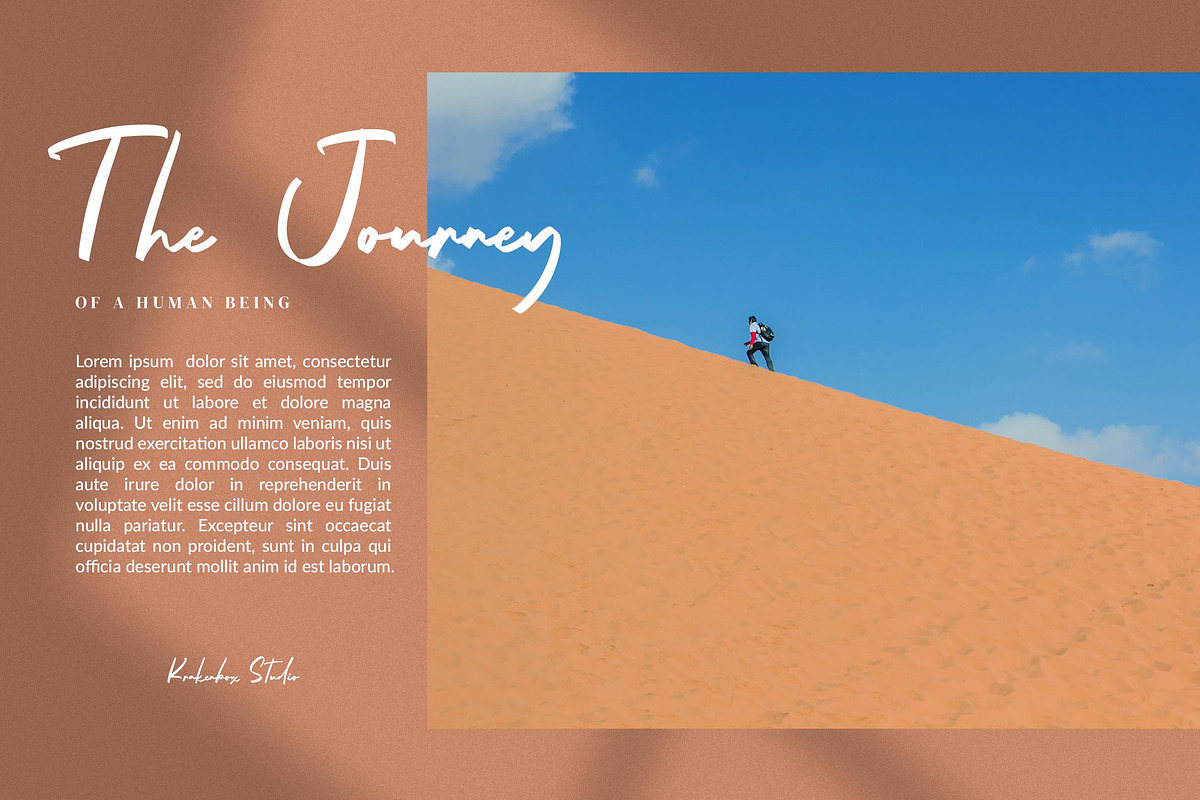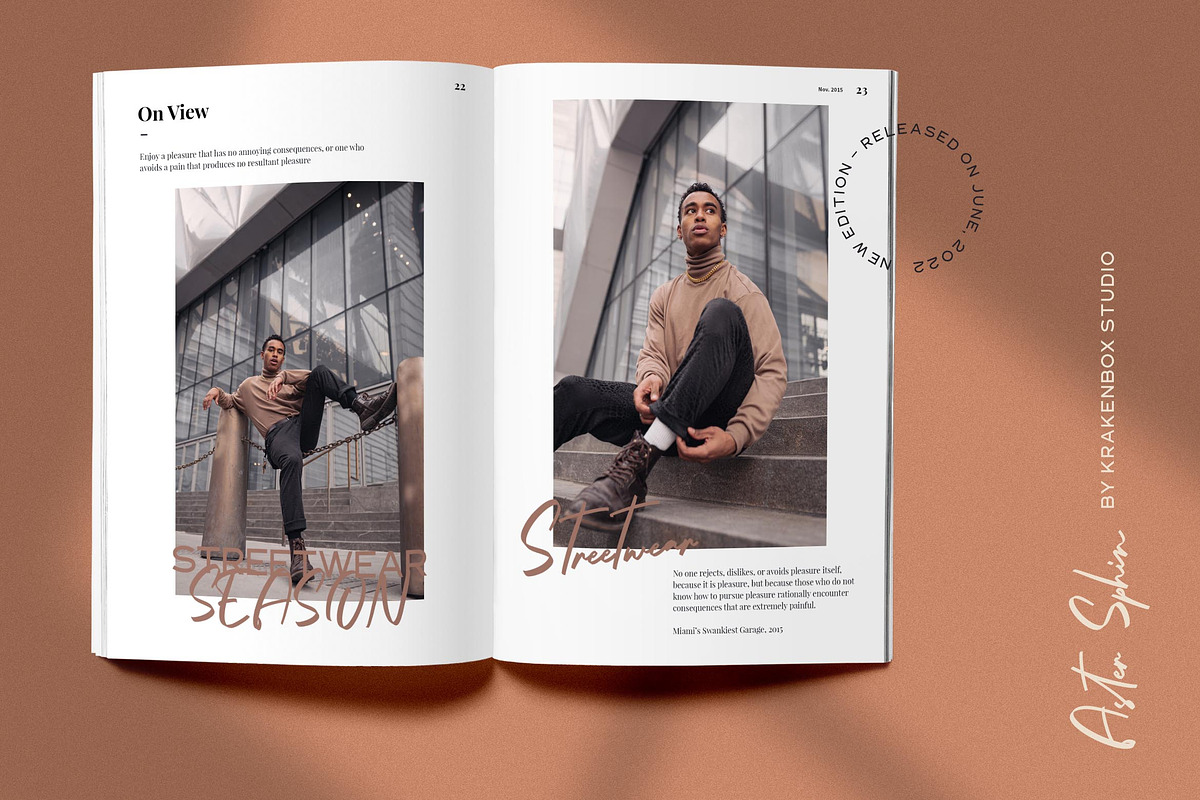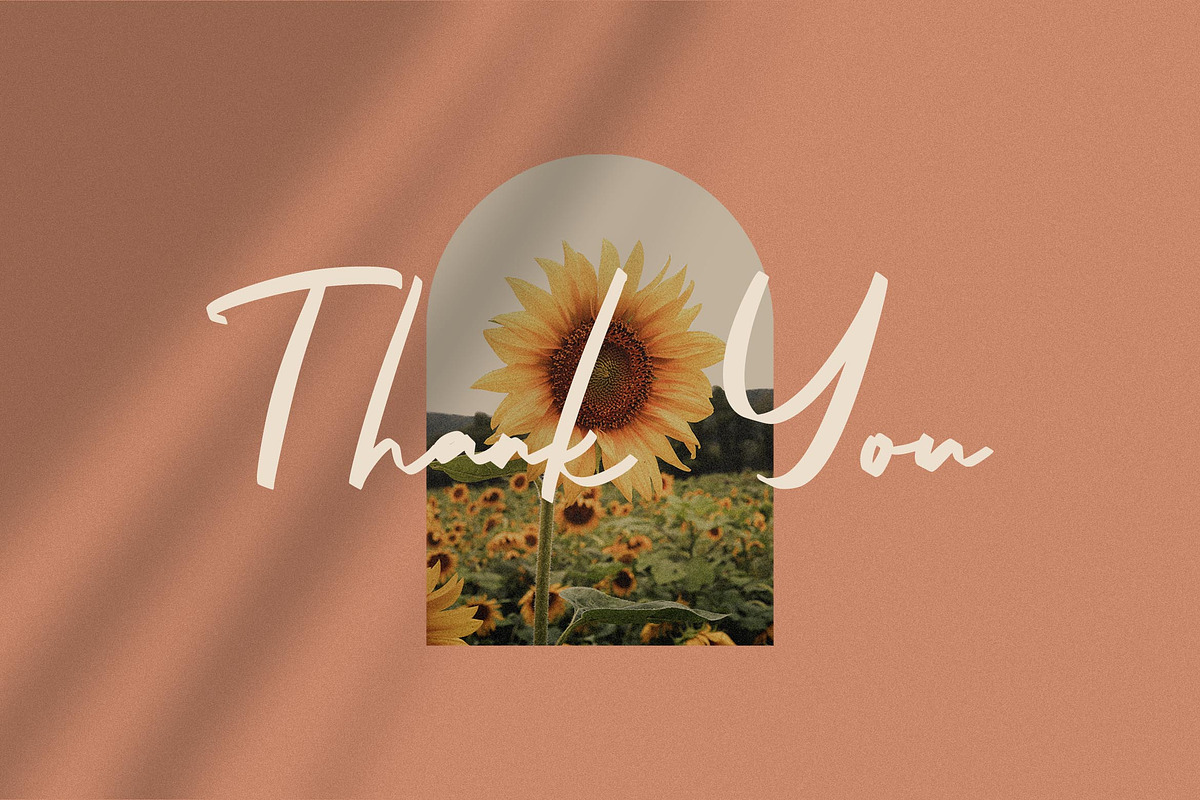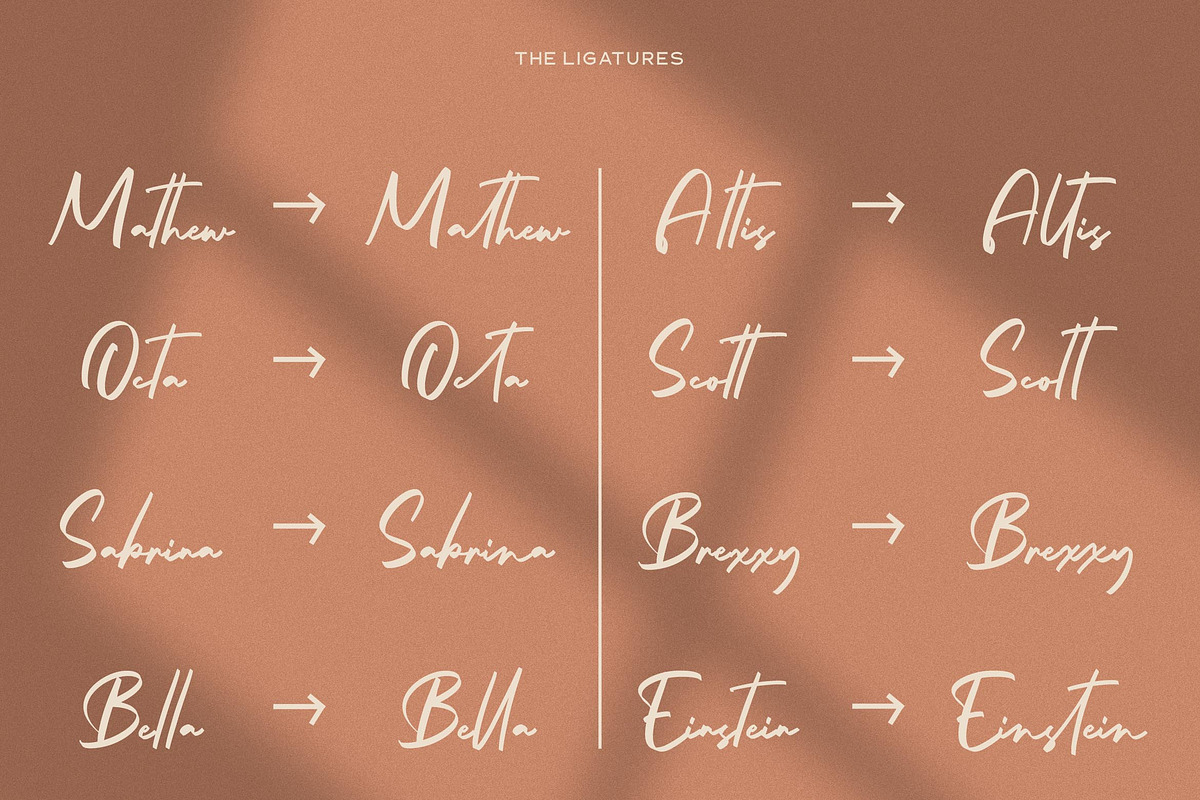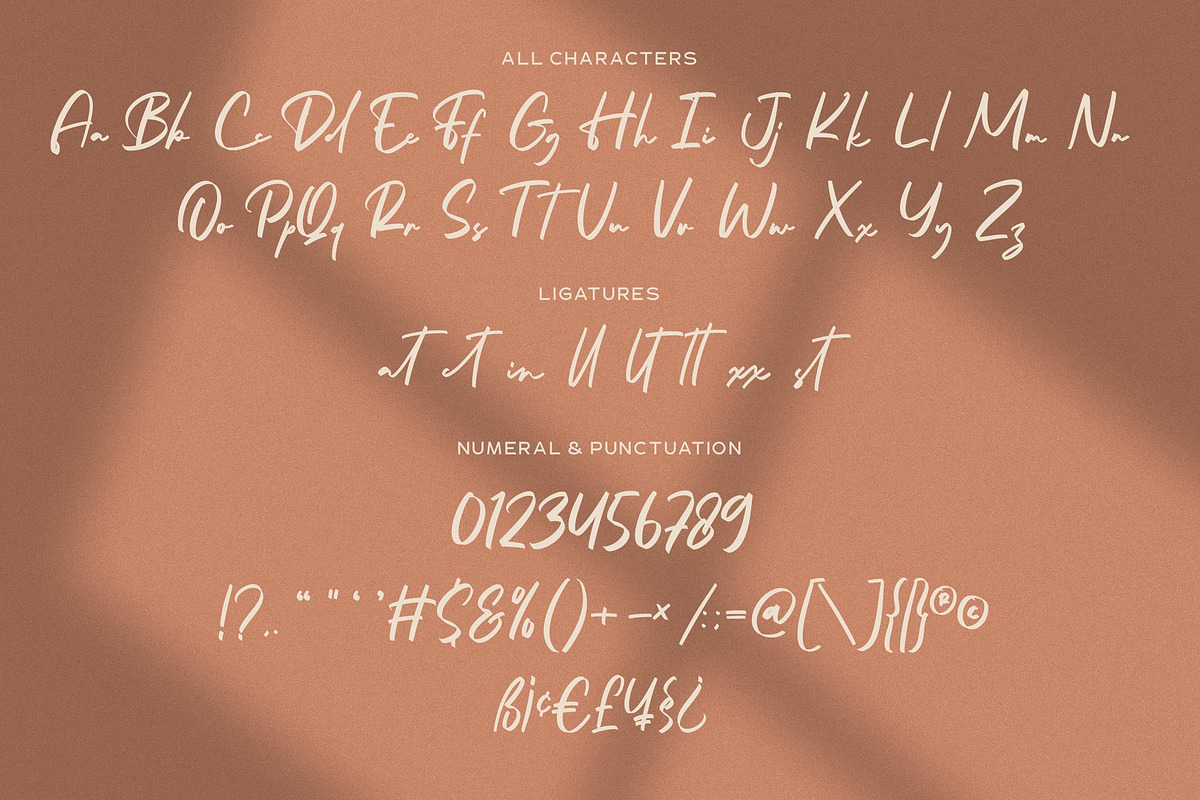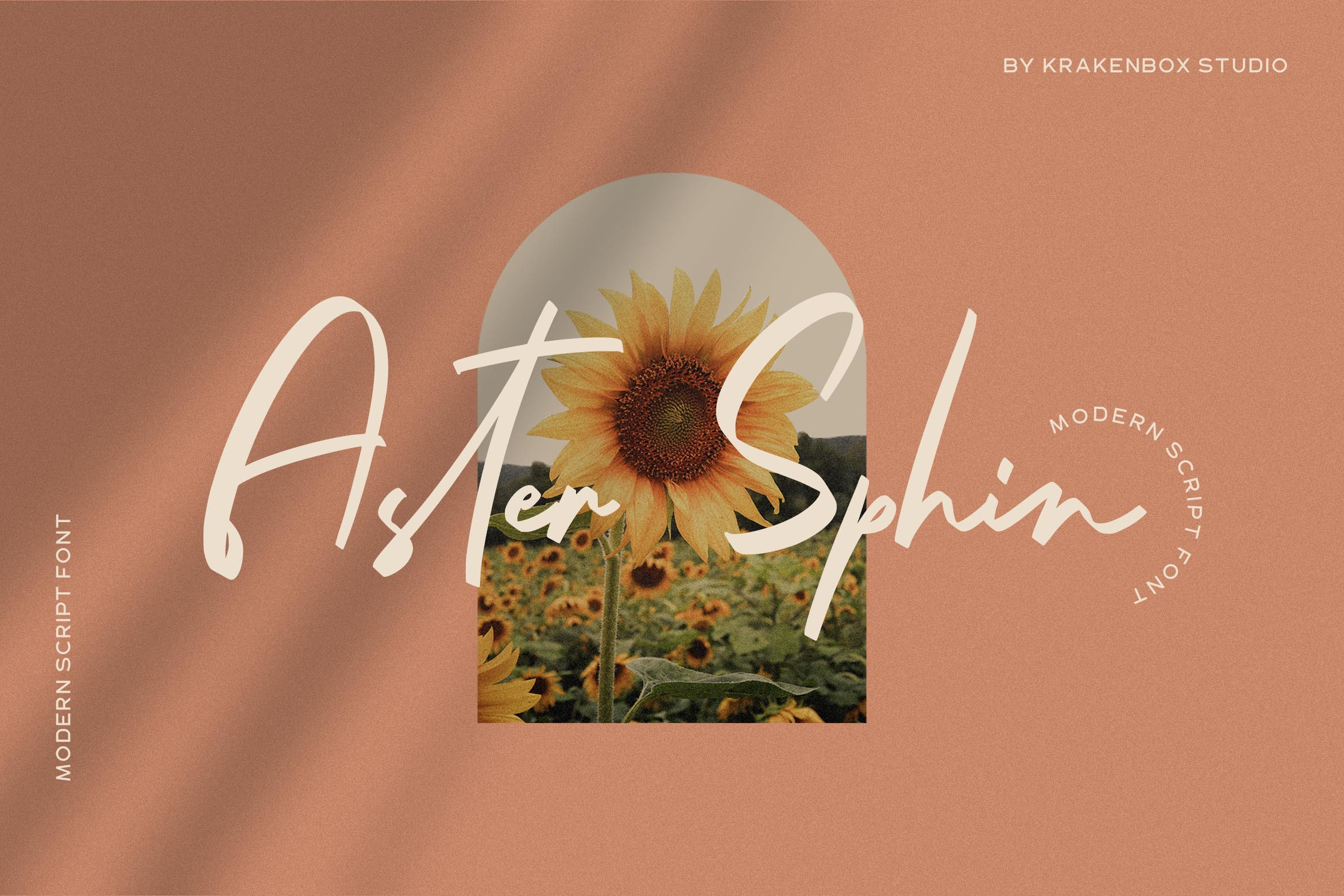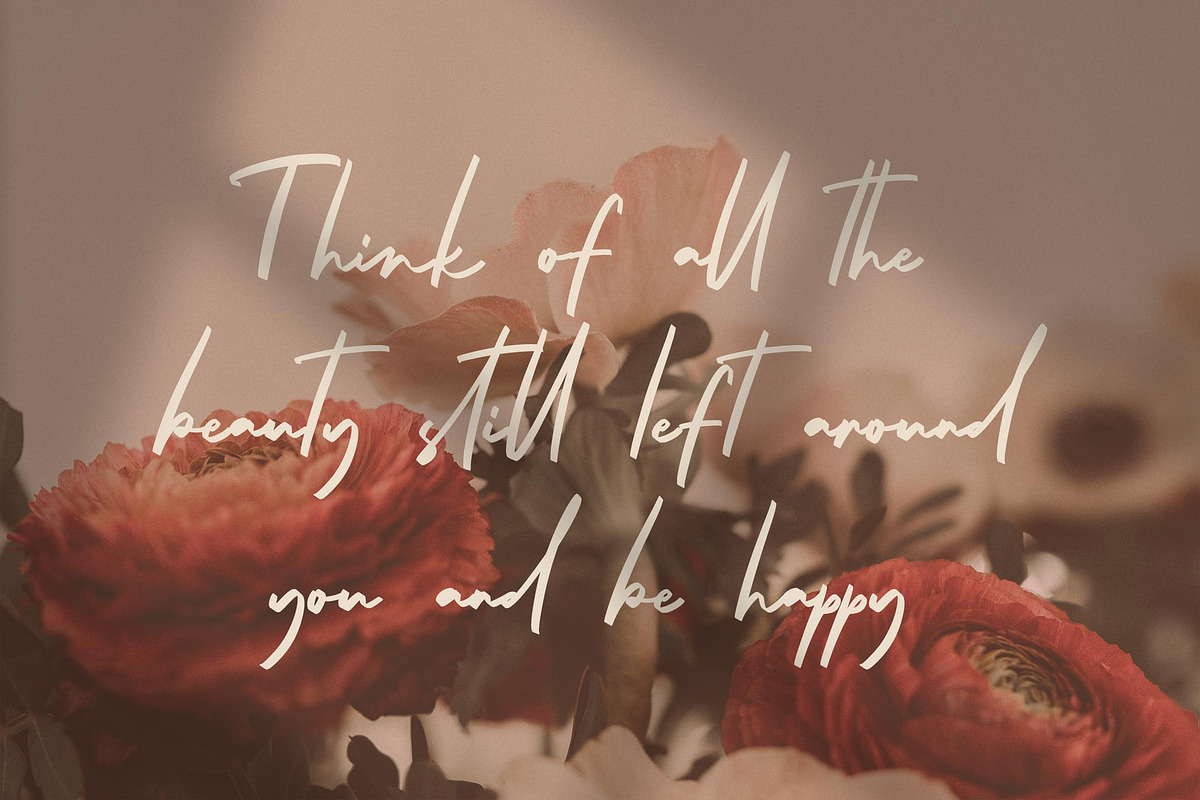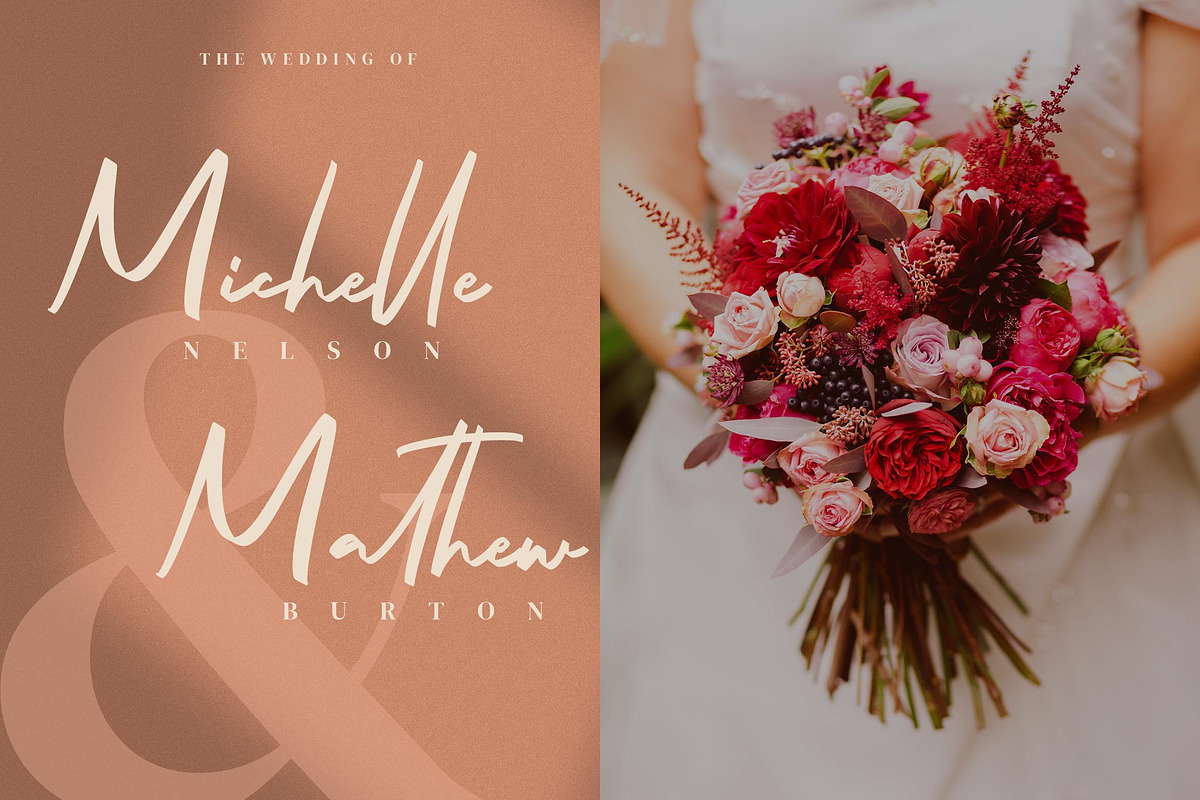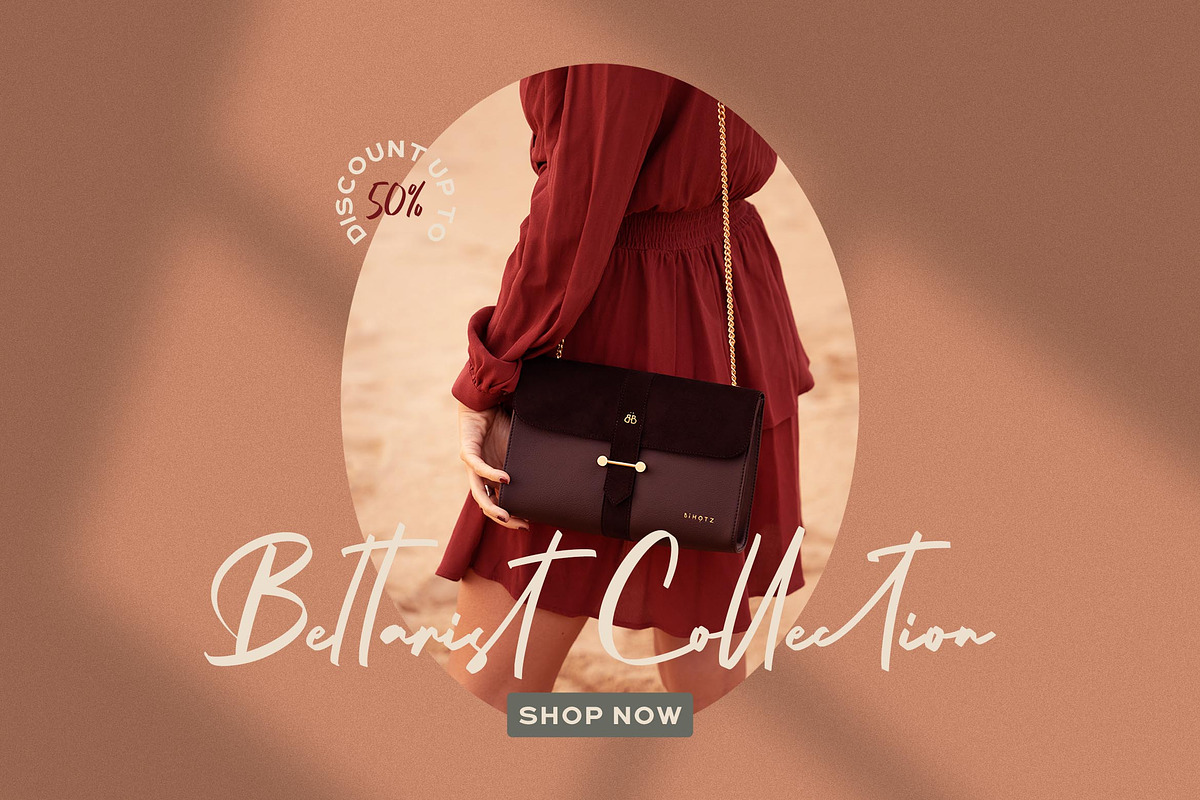
Aster Sphin - Script Font
Introducing Aster Sphin - Script Font by KrakenBox
Aster Sphin is a fashionable sophisticated signature-style script with its own unique curves and an elegant inky flow. Its elegant, classy, and modern look
Aster Sphin is best for:
- logos, branding, & Signatures.
- Flyers, Album cover, Magazine, & Advertisements.
- Website design , design blogs, & fashion.
- Quote graphics for social media.
- and also it works great for other projects.
- Character Set (Uppercase and Lowercase)